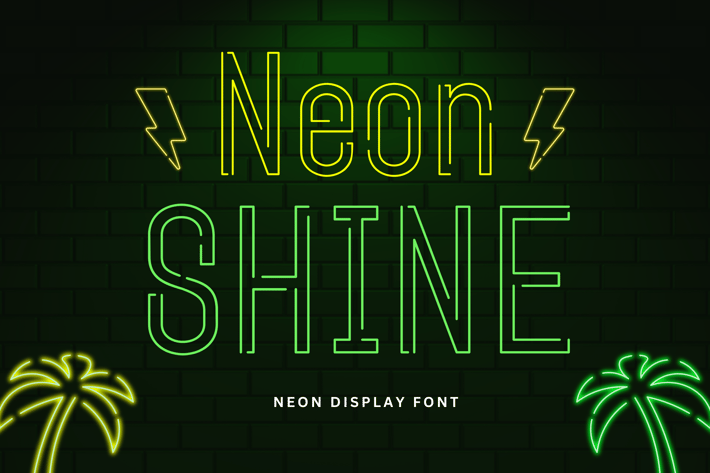
Neon Shine - Neon Display Font
Neon Shine is a vibrant neon font that captures the glow and energy of city lights. Perfect for signs, posters, and designs needing a bold, electric touch, Neon Shine brings a modern, luminous vibe to any project. Let your work light up with Neon Shine!
- Regular & Italic Style
- Numeral & Punctuation
- Multilingual support